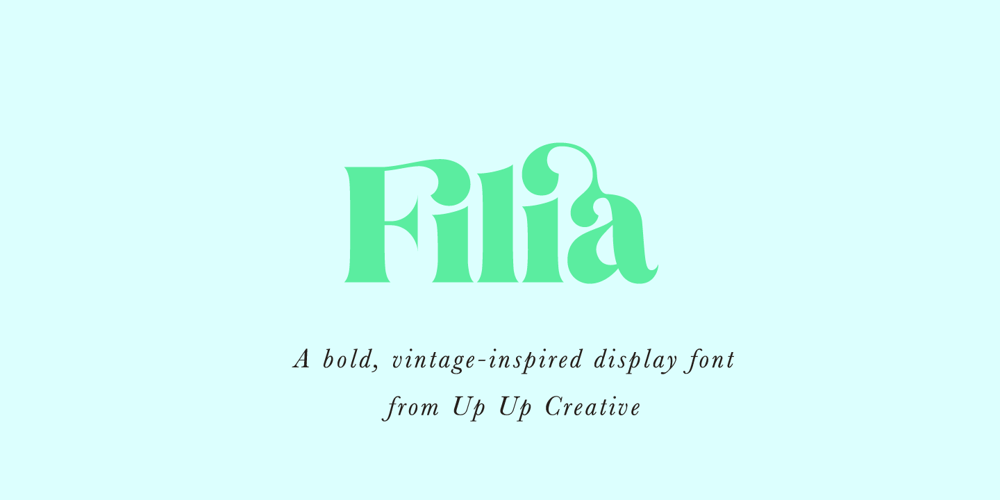
Filia Font Family was designed by Julie Green and published by Up Up Creative. Filia contains 1 styles and family package options. Introducing Filia, a vintage-inspired display font with smooth curves and plenty of OpenType features. Filia is perfect for your next editorial, advertising, branding, book, or invitation project.OpenType FeaturesFilia includes 900+ glyphs. Specific OpenType features include stylistic alternates, several stylistic sets with features like swashes, initial forms, multilingual support (including multiple currency symbols – for kicks I even included a Bitcoin symbol in there), and three ampersand styles. It also includes 120+ standard and discretionary ligatures that add character and interest to your typography.The OpenType features can be very easily accessed by using OpenType-savvy programs such as Adobe Illustrator and Adobe InDesign. (To access most of these awesome features in Microsoft Word, you’ll need to get comfortable with the advanced tab of Word’s font menu. If you have questions about this, ask me!)Please note: there is only one file this font. That’s the magic of OpenType – all of the alternates, ligatures, etc. are built right into the main .otf file!Mail support : julie@upupcreative.comFind inspiration (and sneak peeks at my next font-in-progress) on Instagram: http://instagram.com/julieatupupcreative Facebook : https://www.facebook.com/upupcreative Pinterest: https://www.pinterest.com/upupcreative My website: http://upupcreative.com PLEASE ENJOY! I can’t wait to see what you make with Filia! Feel free to use the #upupcreative and #filiafont tags to show me what you’ve been up to!